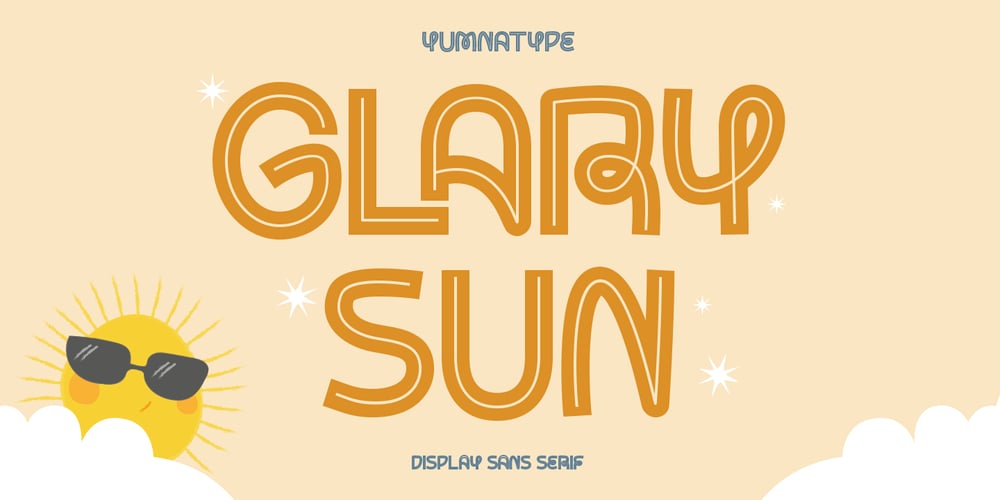
Glary Sun Font Family was designed by Donis Miftahudin and published by Yumna Type. Glary Sun contains 1 styles and family package options. Glary Sun is a bold and striking display font that radiates warmth and energy with its all caps design and thick weight. Each letter in Glary Sun is designed with a thick weight, giving it a solid and commanding presence on the page. The square shape of the font adds a sense of stability and structure, while the softened corners add a touch of uniqueness and character to the overall design. Additionally, the inline detailing adds depth and dimension to the font, enhancing its visual appeal and making it stand out. In addition, enjoy the features here.Features: Ligatures Multilingual Supports PUA Encoded Numerals and Punctuations Glary Sun fits in headlines, logos, posters, flyers, branding materials, print media, editorial layouts, and many more designs. Find out more ways to use this font by taking a look at the font preview.Thanks for purchasing our fonts. Hopefully, you have a great time using our font. Feel free to contact us anytime for further information or when you have trouble with the font. Thanks a lot and happy designing.